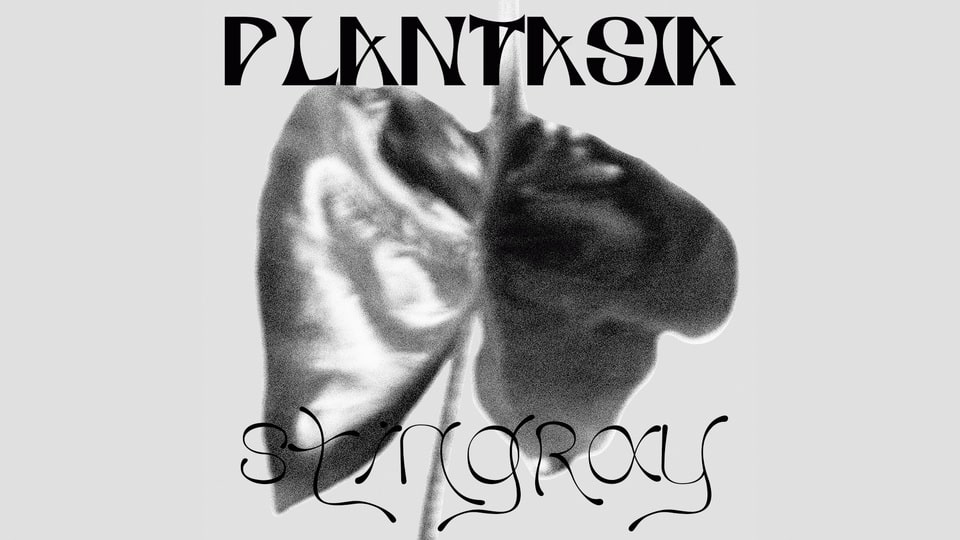
Download Plantasia Stingray font, a creative display typeface inspired by the Alocasia Stingray. Plantasia is a typeface family created by the students of the G5 Communication 360 class.
Designer: Emma Kentzinger